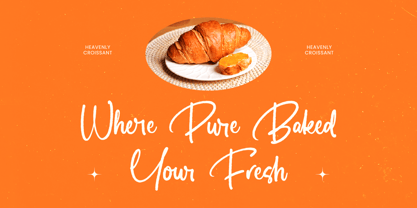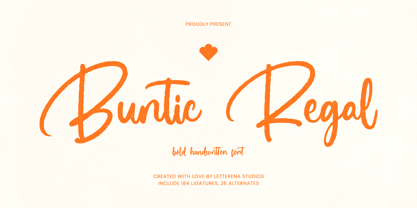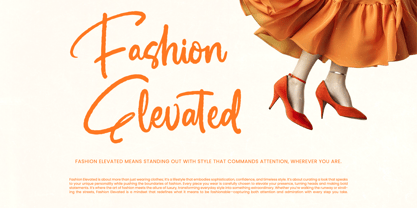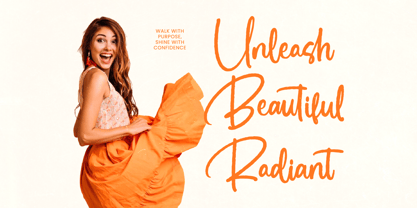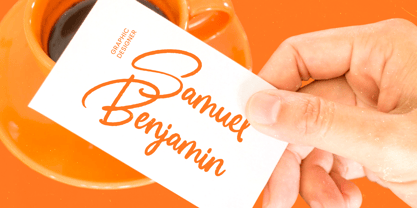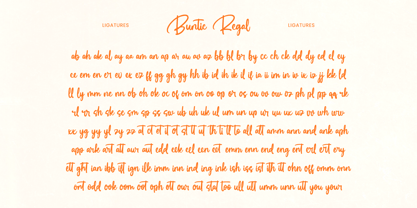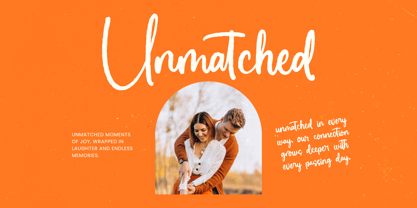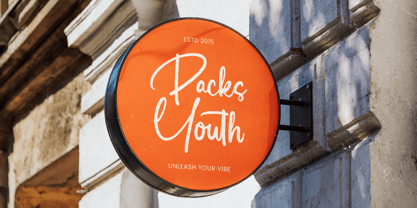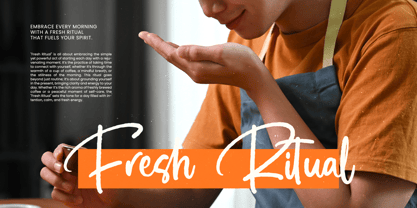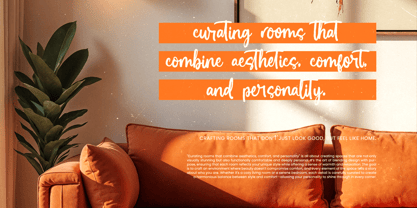
Buntic Regal
by Letterena Studios
The Buntic Regal Font Family was designed by Heru Utama Putra and published by Letterena Studios. Buntic Regal contains 2 styles and family package options. More about this family
Buntic Regal is a bold handwritten script font designed to convey warmth, charm, and confident elegance. Crafted with smooth strokes and expressive curves, this typeface captures the authenticity of natural handwriting while maintaining a polished and modern aesthetic. Perfect for branding, logos, packaging, social media graphics, invitations, greeting cards, and lifestyle editorials, Buntic Regal adds a vibrant and personable touch to any creative project. Featuring 184 ligatures and 26 alternates, it offers extensive stylistic flexibility for seamless letter connections and unique typographic compositions. Whether used for eye-catching headlines or stylish signatures, Buntic Regal delivers bold character, creative flair, and timeless handwritten appeal across print and digital media.